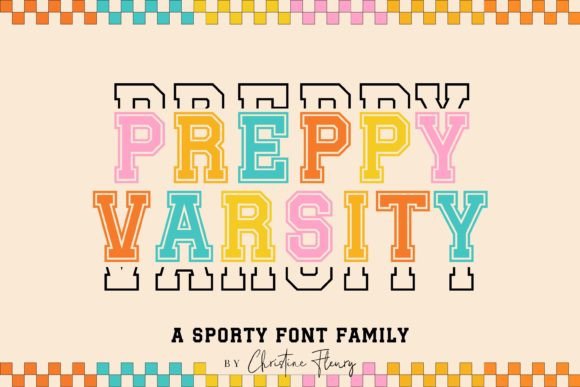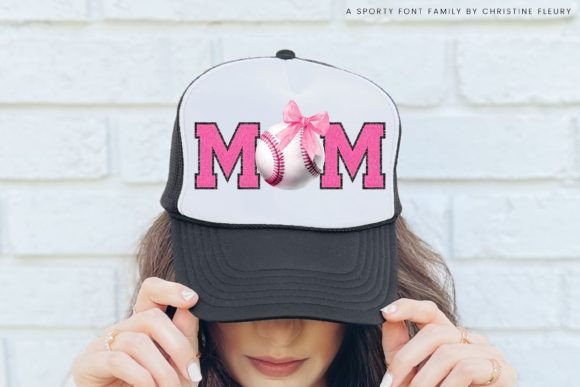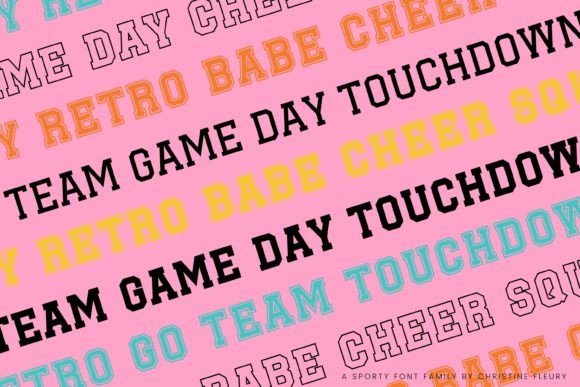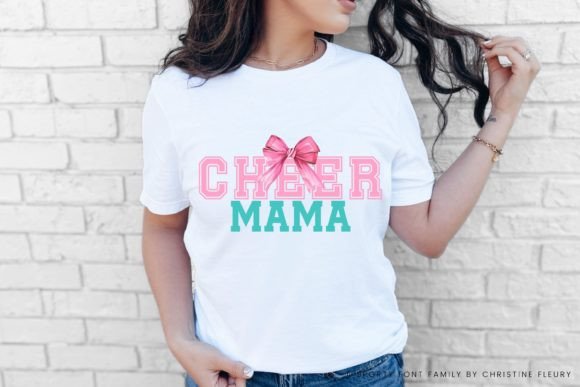
Preppy Varsity Font
Introducing Preppy Varsity Font Family. Get into the varsity college vibes with this retro sport font – where you have 4 font variants to create a variety of crafts 🌟. Perfect for Sublimation, SVGs, Crafts, logos, Cards, Quotes, Branding, Ornaments, Mugs, prints, and more!